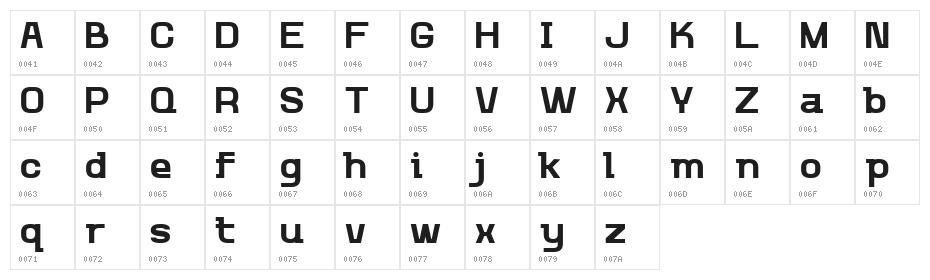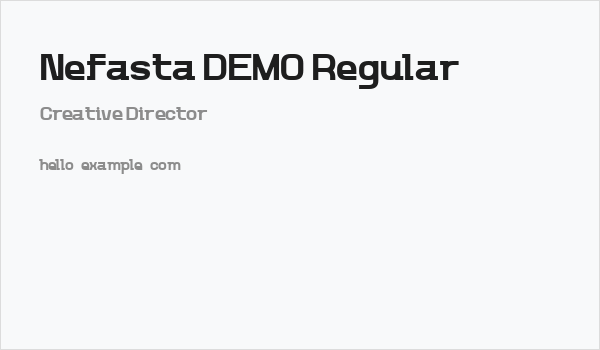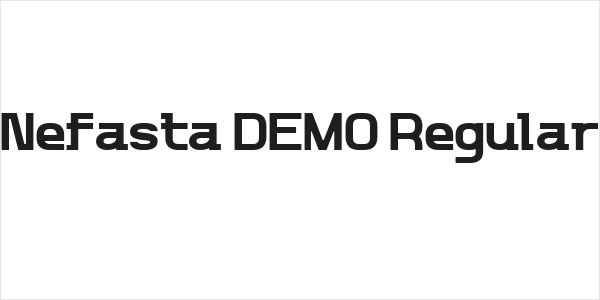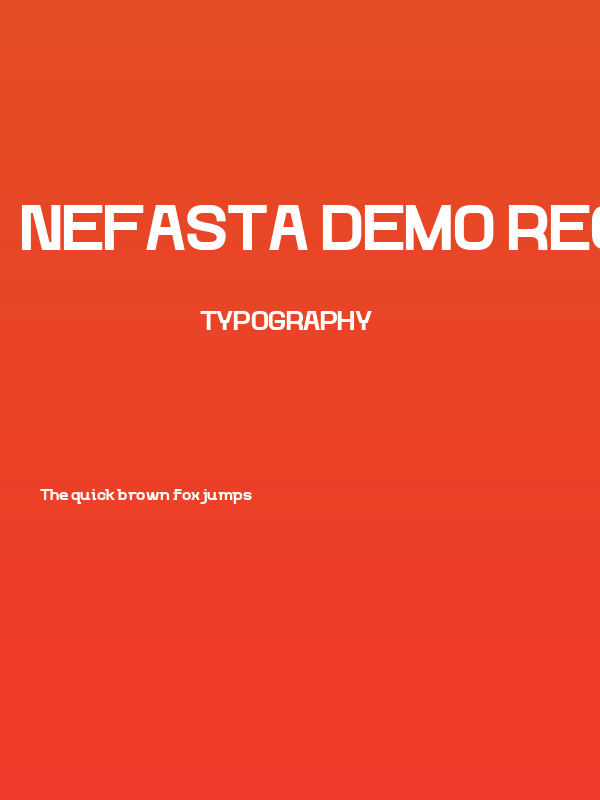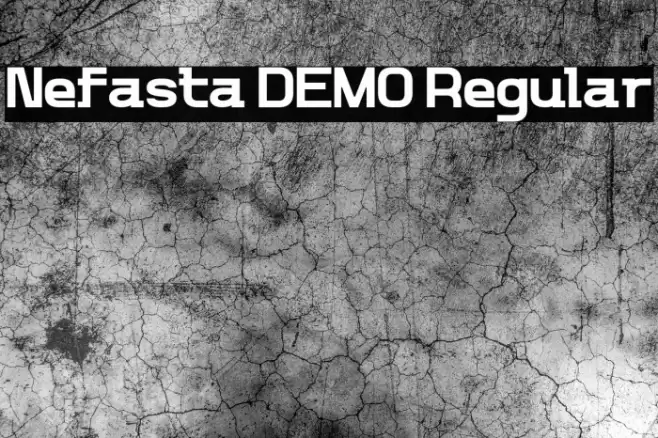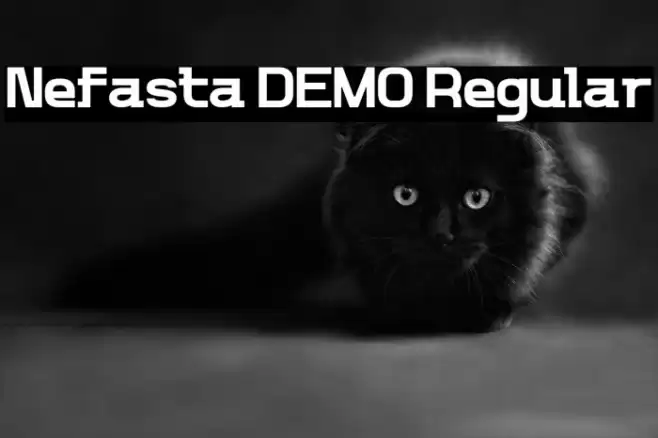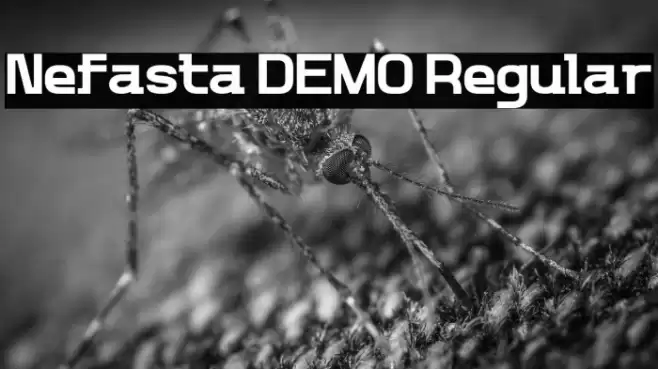
Nefasta DEMO Regular Font
Nefasta DEMO Regular Description
Bold, geometric sans-serif font with uniform stroke width and slightly rounded edges.
Nefasta DEMO
| Overall Style | Modern, Geometric |